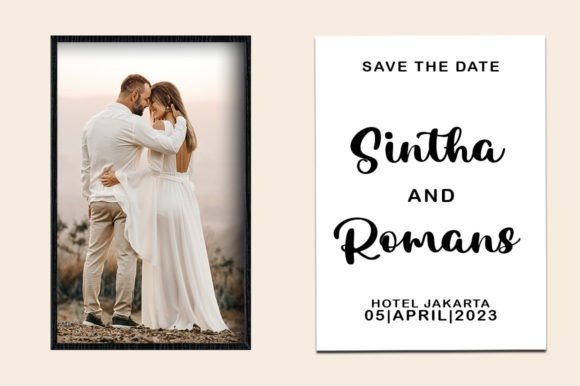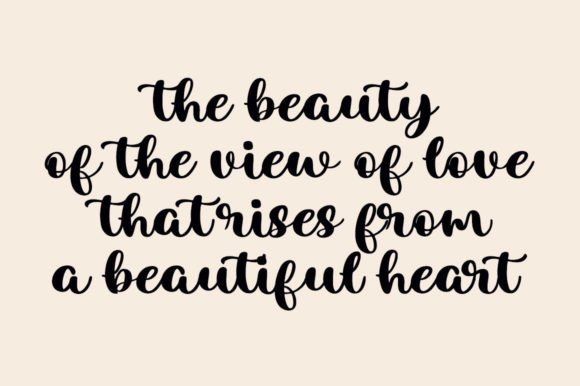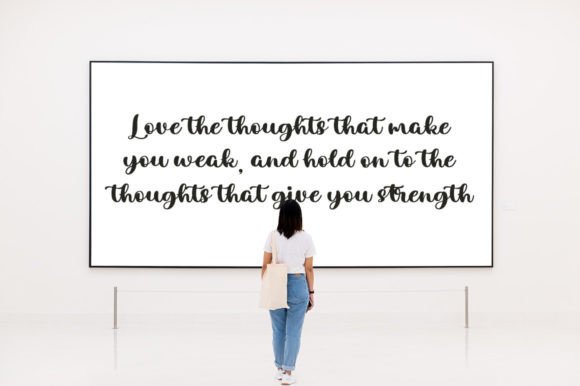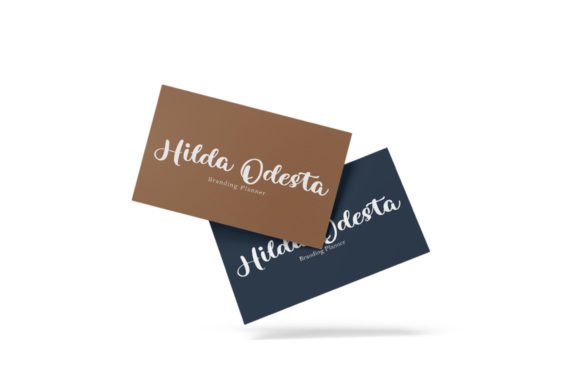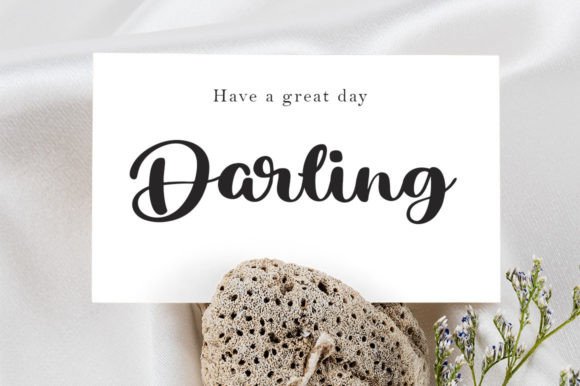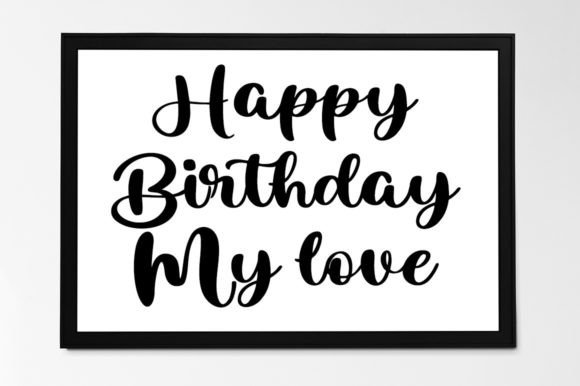
Bonsai Font: Elevate Your Typography with a Fun yet Elegant Script Font
Are you tired of using the same old fonts for your designs? Look no further than the Bonsai Font, a very fun yet elegant script font that is sure to add a touch of sophistication and whimsy to your typography. With its extra curves and twists, Bonsai is guaranteed to make your text stand out, perfect for a variety of design projects, from logos and printed quotes to invitations, cards, product packaging, headers, and weddings.
The Unique Features of Bonsai Font
What sets Bonsai Font apart from other script fonts is its unique blend of elegance and playfulness. The font features extra curves and twists that give it a dynamic and energetic feel, making it perfect for designers who want to add a touch of personality to their work. Additionally, Bonsai comes with a full set of lowercase alternatives, which allow you to create more authentic custom-feel text. This feature is especially useful for designers who want to create a more personalized and handcrafted look for their designs.
Uses for Bonsai Font
Bonsai Font is incredibly versatile and can be used for a wide range of design projects. Here are just a few ideas to get you started:
- Logos: Bonsai Font is perfect for creating unique and memorable logos that will help your brand stand out.
- Printed Quotes: Add a touch of elegance and sophistication to your printed quotes with Bonsai Font.
- Invitations: Create beautiful and eye-catching invitations for weddings, parties, and other special events.
- Cards: Use Bonsai Font to create personalized and stylish greeting cards for any occasion.
- Product Packaging: Add a touch of whimsy and personality to your product packaging with Bonsai Font.
- Headers: Use Bonsai Font to create eye-catching headers for your website, blog, or social media channels.
- Weddings: Bonsai Font is perfect for creating beautiful and elegant wedding stationery, including invitations, programs, and place cards.
Why Designers and Crafters Love Bonsai Font
Designers and crafters love Bonsai Font for its unique blend of elegance and playfulness. The font is easy to use and can be incorporated into a wide range of design projects. Additionally, the full set of lowercase alternatives allows designers to create more authentic custom-feel text, which is perfect for creating a personalized and handcrafted look.
Tips for Using Bonsai Font
Here are a few tips for using Bonsai Font in your designs:
- Experiment with different colors: Bonsai Font looks great in a variety of colors, so don’t be afraid to experiment and find the perfect color for your design.
- Use it sparingly: Bonsai Font is a statement font, so use it sparingly to add emphasis and personality to your design.
- Pair it with other fonts: Bonsai Font pairs well with a variety of other fonts, so don’t be afraid to experiment and find the perfect combination for your design.
In conclusion, Bonsai Font is a fun yet elegant script font that is perfect for designers and crafters who want to add a touch of personality and whimsy to their typography. With its extra curves and twists, full set of lowercase alternatives, and versatility, Bonsai Font is sure to become a staple in your design toolkit. So why wait? Download Bonsai Font today and start creating beautiful handcrafted typography in an instant!